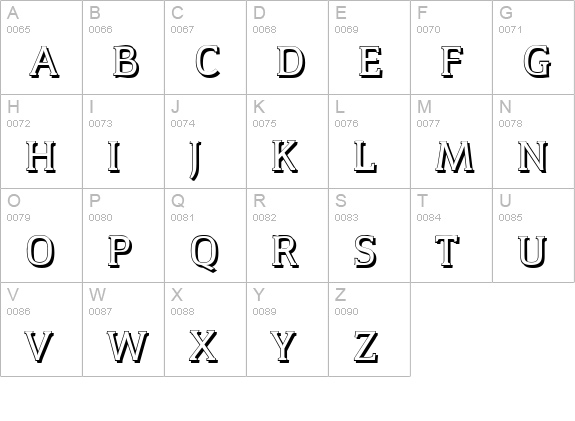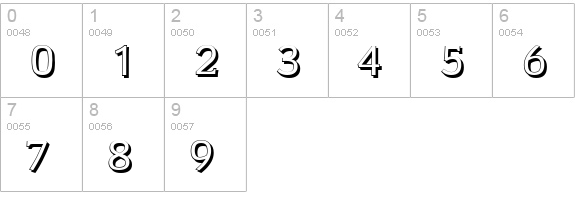
CongressShadow-Regular Font Details
CongressShadow-Regular is the standard, neutral variant in the CongressShadow typeface family \xE2\x80\x94 well suited to general body text, paragraphs, and standard typographic work.
CongressShadow-Regular font is a unique and eye-catching typeface that adds a touch of elegance and sophistication to any design. With its bold and shadowed appearance, this font is perfect for making a statement or highlighting important information in your projects. What sets CongressShadow-Regular font apart is not only its striking design, but also the fact that it is available for free download at FontsMarket.com. This means you can easily access and use this stylish font in your personal or commercial projects without any cost. Whether you're creating posters, invitations, logos, or any other design work, CongressShadow-Regular font is a versatile choice that will help you stand out. Its sleek and modern look will surely impress your audience and elevate the overall aesthetic of your work. Download CongressShadow-Regular font today and unleash your creativity with this amazing free resource from FontsMarket.com.